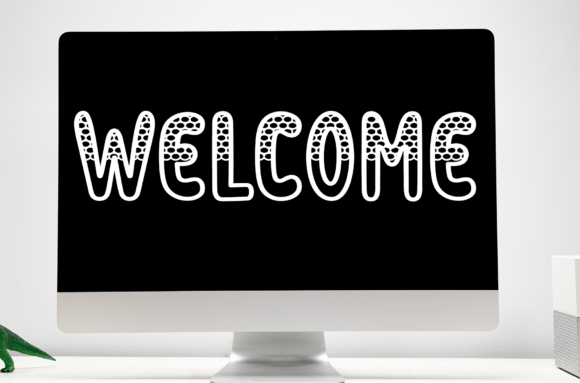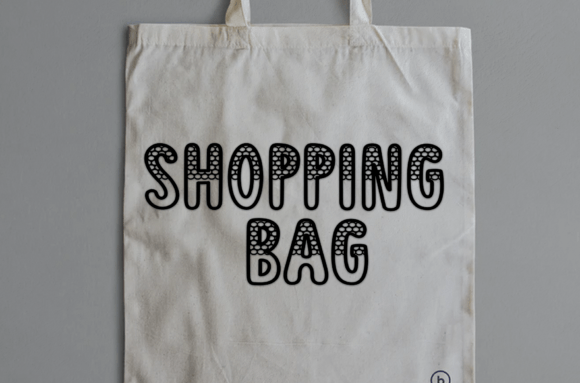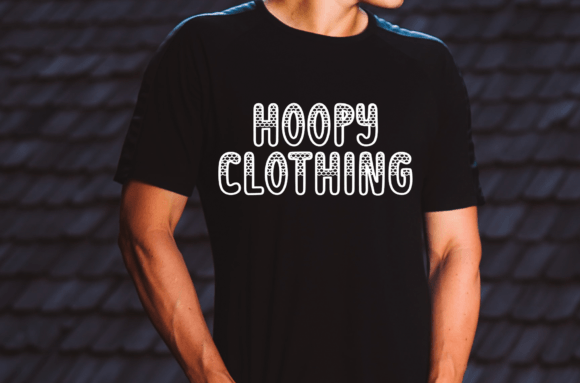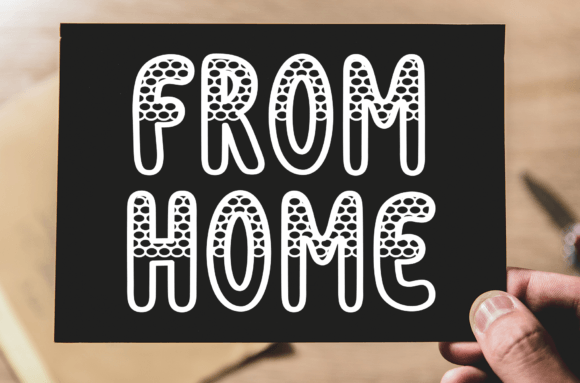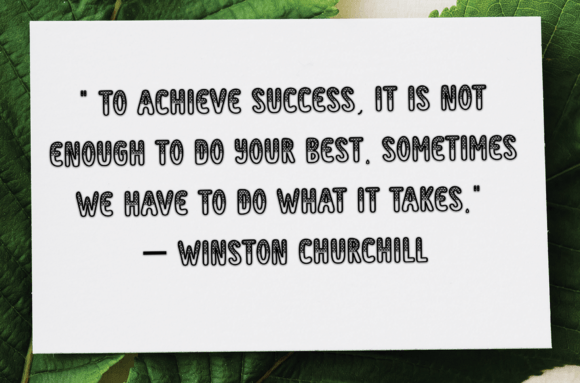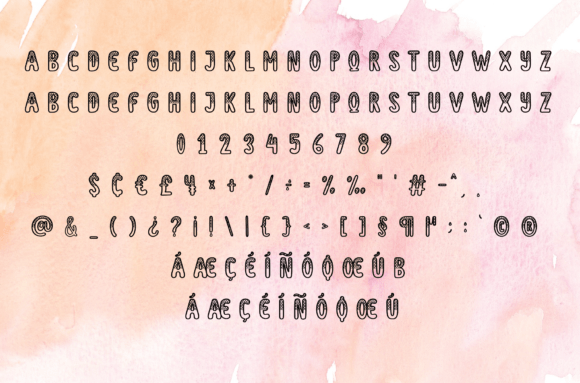
Introducing Design Clothes Font: Add a Touch of Whimsy to Your Designs
Are you tired of using the same old fonts in your designs? Do you want to add a touch of personality and whimsy to your projects? Look no further than the Design Clothes font! This sweet and friendly handwritten display font is perfect for adding a fun and creative touch to your designs.
What Makes Design Clothes Font So Special?
Design Clothes font is a cute and creative handwritten display font that is ideal for writing wedding invitations, cards, or any other design that might need a fun touch. Its sweet and friendly style makes it perfect for designers and crafters who want to add a personal touch to their projects.
Whether you’re designing a wedding invitation, a greeting card, or a DIY craft project, Design Clothes font is the perfect choice. Its unique and playful style will add a touch of whimsy to your designs and make them stand out from the crowd.
Key Features of Design Clothes Font
- Cute and Creative: Design Clothes font is a sweet and friendly handwritten display font that is perfect for adding a fun and creative touch to your designs.
- Handwritten Style: This font features a handwritten style that is perfect for adding a personal touch to your projects.
- Display Font: Design Clothes font is a display font, making it perfect for headlines, titles, and other design elements that need to make a statement.
- Versatile: This font is versatile and can be used for a variety of design projects, including wedding invitations, cards, DIY crafts, and more.
Uses for Design Clothes Font
Design Clothes font is perfect for a variety of design projects, including:
- Wedding Invitations: Add a touch of whimsy and romance to your wedding invitations with Design Clothes font.
- Greeting Cards: Use Design Clothes font to create fun and playful greeting cards for special occasions.
- DIY Crafts: Add a personal touch to your DIY craft projects, such as scrapbooking, journaling, and more.
- Signs and Banners: Use Design Clothes font to create eye-catching signs and banners for parties, events, and more.
Tips for Using Design Clothes Font
Here are a few tips for using Design Clothes font in your designs:
- Use it as a Headline Font: Design Clothes font is perfect for use as a headline font, adding a touch of whimsy and personality to your designs.
- Pair it with Other Fonts: Experiment with pairing Design Clothes font with other fonts to create a unique and interesting design.
- Use it for Titles and Subtitles: Use Design Clothes font for titles and subtitles to add a touch of personality to your designs.
Design Clothes font is a sweet and friendly handwritten display font that is perfect for adding a fun and creative touch to your designs. Its cute and playful style makes it ideal for wedding invitations, cards, DIY crafts, and more. With its versatility and unique style, Design Clothes font is a must-have for designers and crafters looking to add a touch of whimsy to their projects.